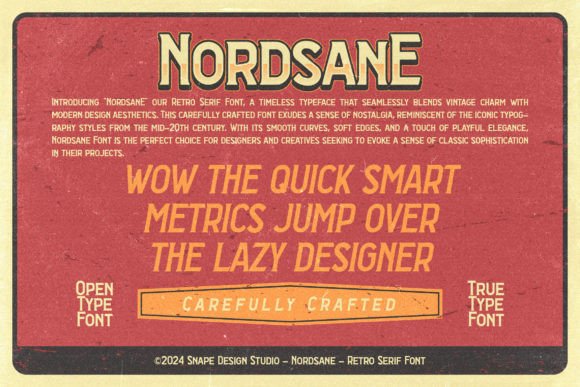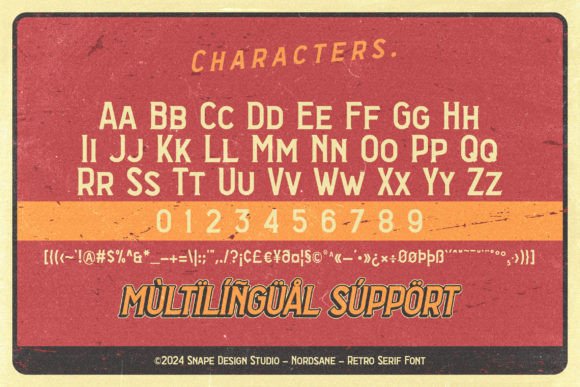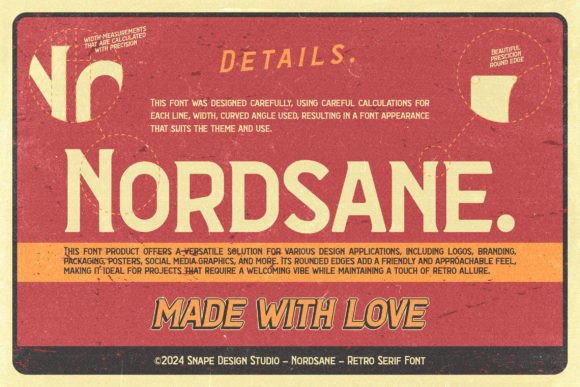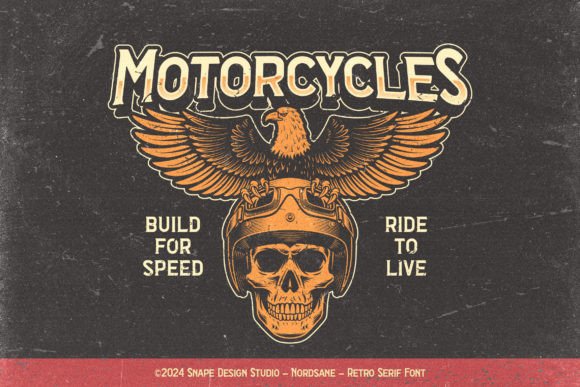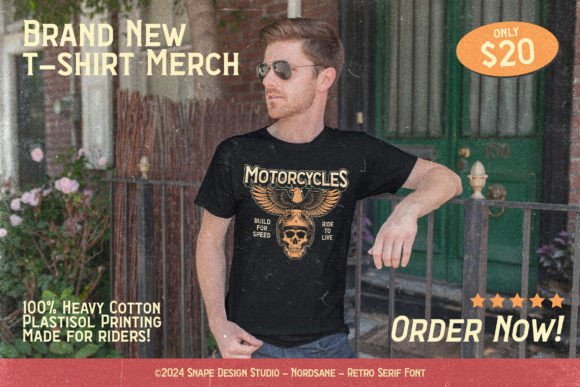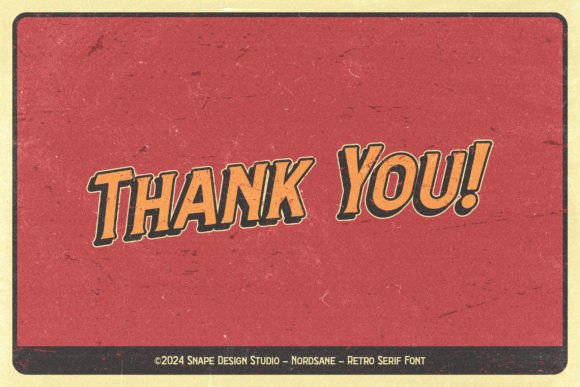
Introduction to Nordsane Font
Nordsane, a retro serif font, captures the essence of mid-century typography with its timeless design.
Inspired by vintage print materials, it blends distinctive serifs with clean lines for a classic yet captivating aesthetic Versatile and stylish, Nordsane is perfect for branding, packaging, and editorial layouts, effortlessly adding a touch of nostalgia to any project.
Key Features of Nordsane Font